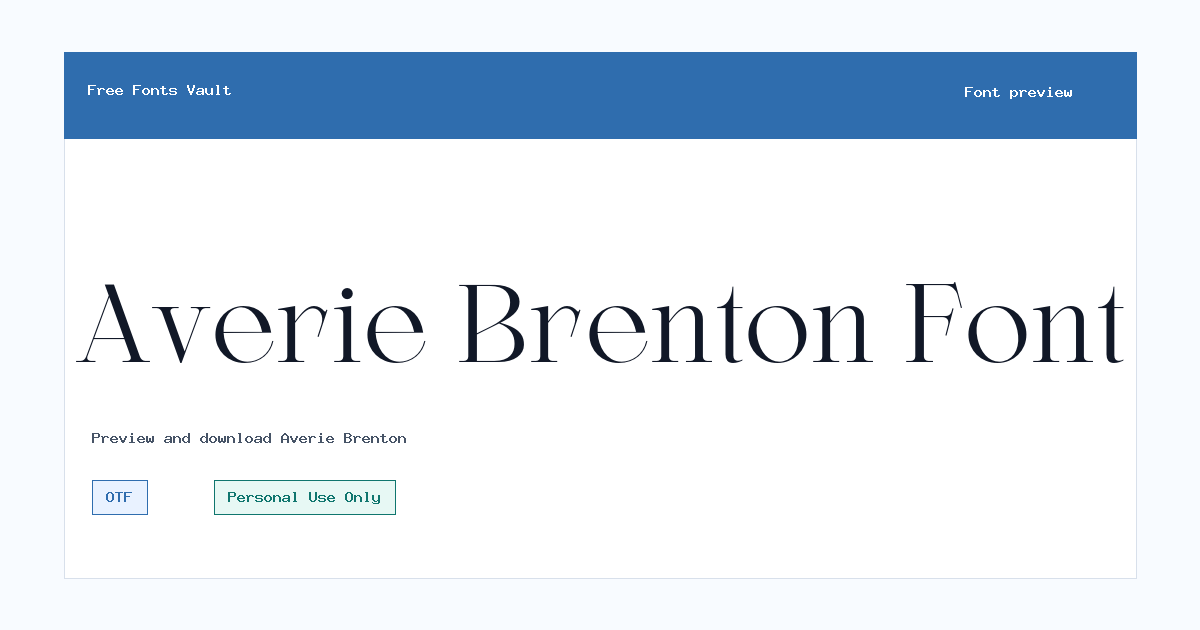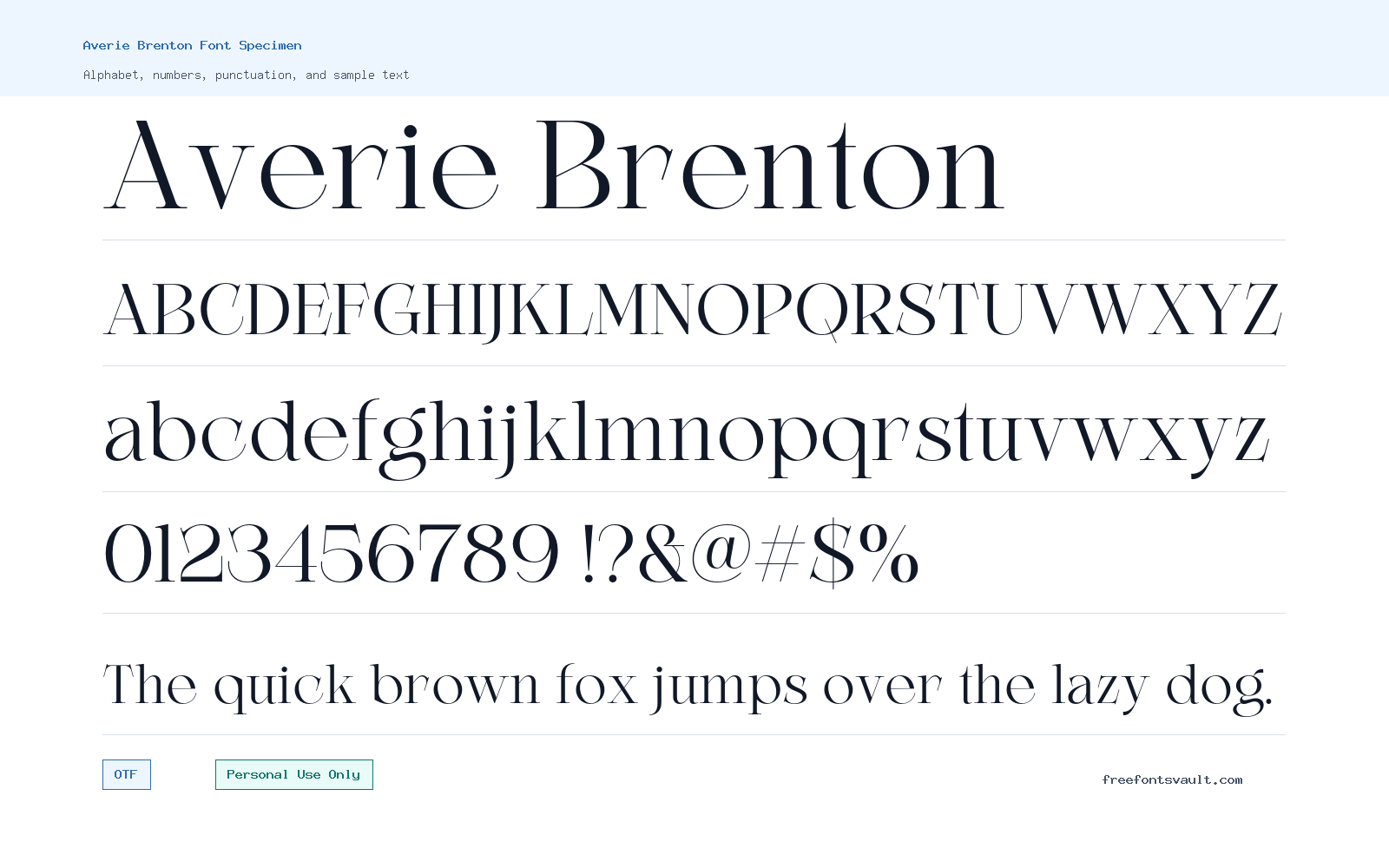
Averie Brenton
Averie Brenton is a personal-use serif font from Akhmad Reza Fauzi of Grezline Studio. Use the preview tool to test your own words, compare short headings, and see whether its serif style fits your design before you download the OTF file.
About Averie Brenton
Averie Brenton is best approached as a display-friendly serif for text that needs more character than a plain system font. Because the confirmed file is a regular OTF style, it is a simple one-style choice rather than a large family with multiple weights. That makes it easy to test, but it also means you should check size, spacing, and contrast carefully in your layout instead of assuming bold, italic, or extended styles will be included.
- Serif font style suited to headline and decorative text testing.
- Personal invitations, name cards, and event graphics.
- Short headings, quote images, and social post titles.
- Mood boards, personal branding drafts, and non-commercial layout experiments.
For a cleaner result, test Averie Brenton on both light and dark backgrounds, then keep it for the words that need emphasis rather than every line.